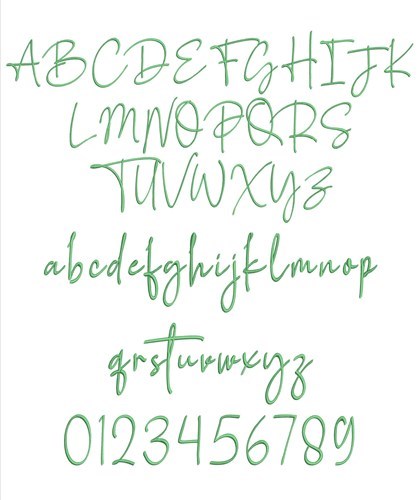
Easy Embroidery is happy to present Ballentine Embrilliance Font machine embroidery font which has Fluid and connected script style makes this machine embroidery font ideal for personalizing items like table linens and clothing. Available in BX font and other Embrilliance formats, it's perfect for adding a unique touch to your creations. included. If you would like to view more embroidery fonts and alphabets please search our embroidery fonts page.